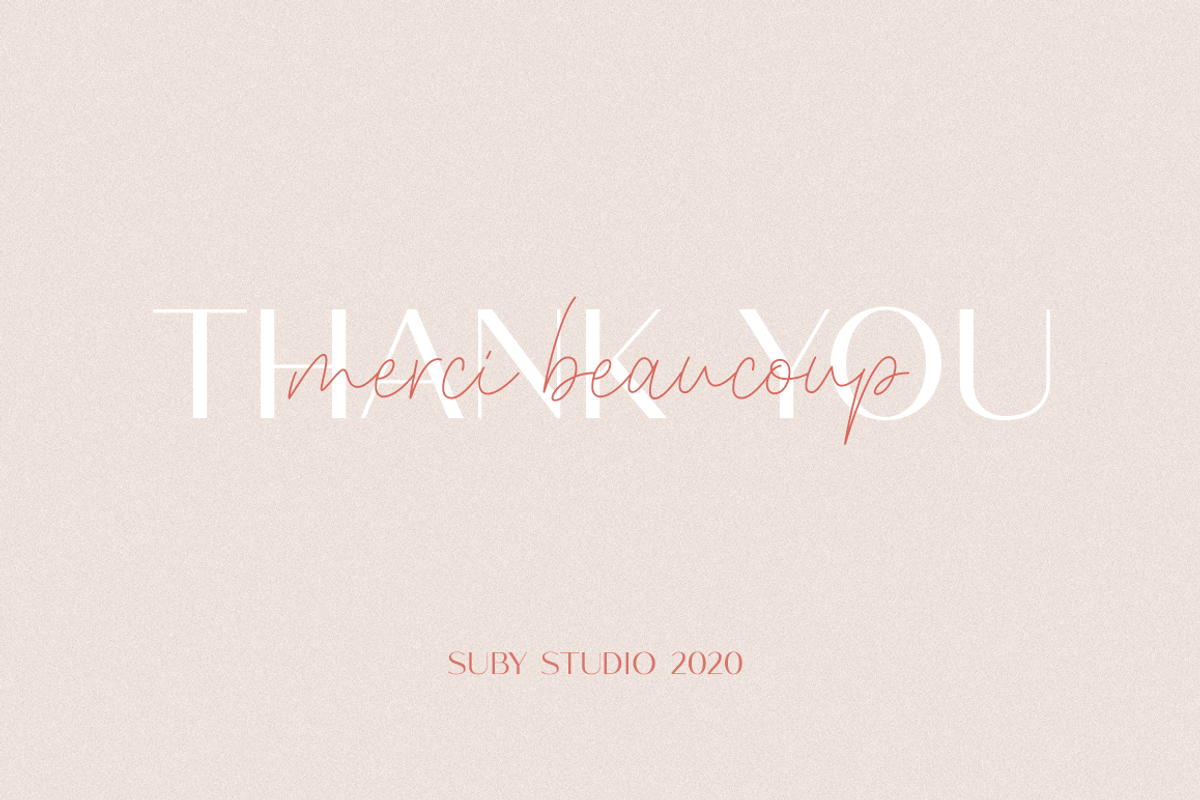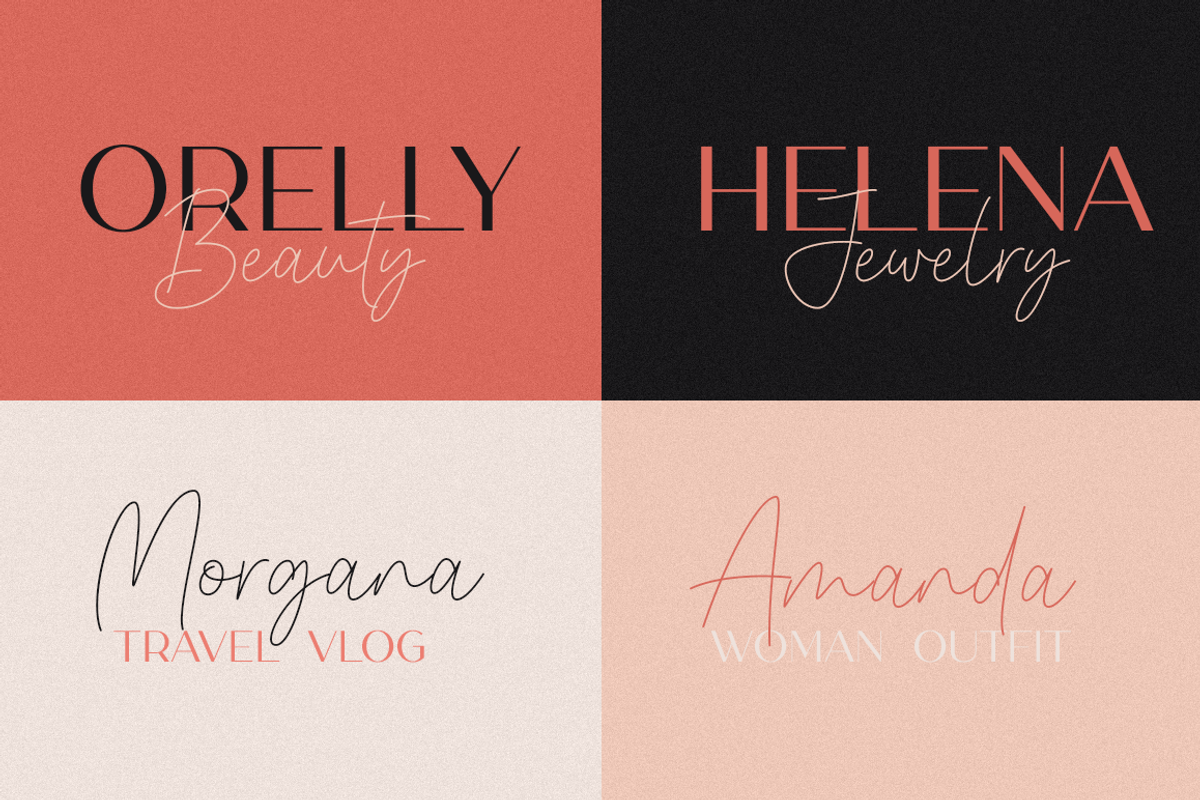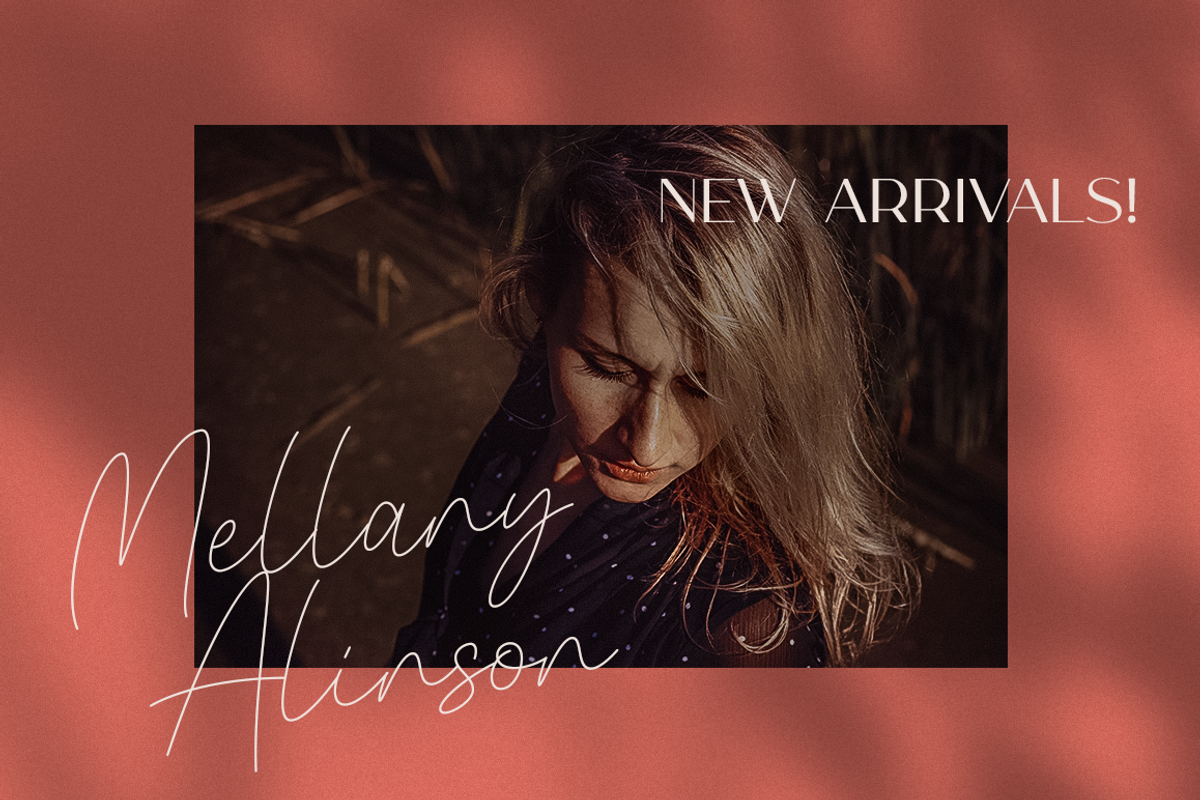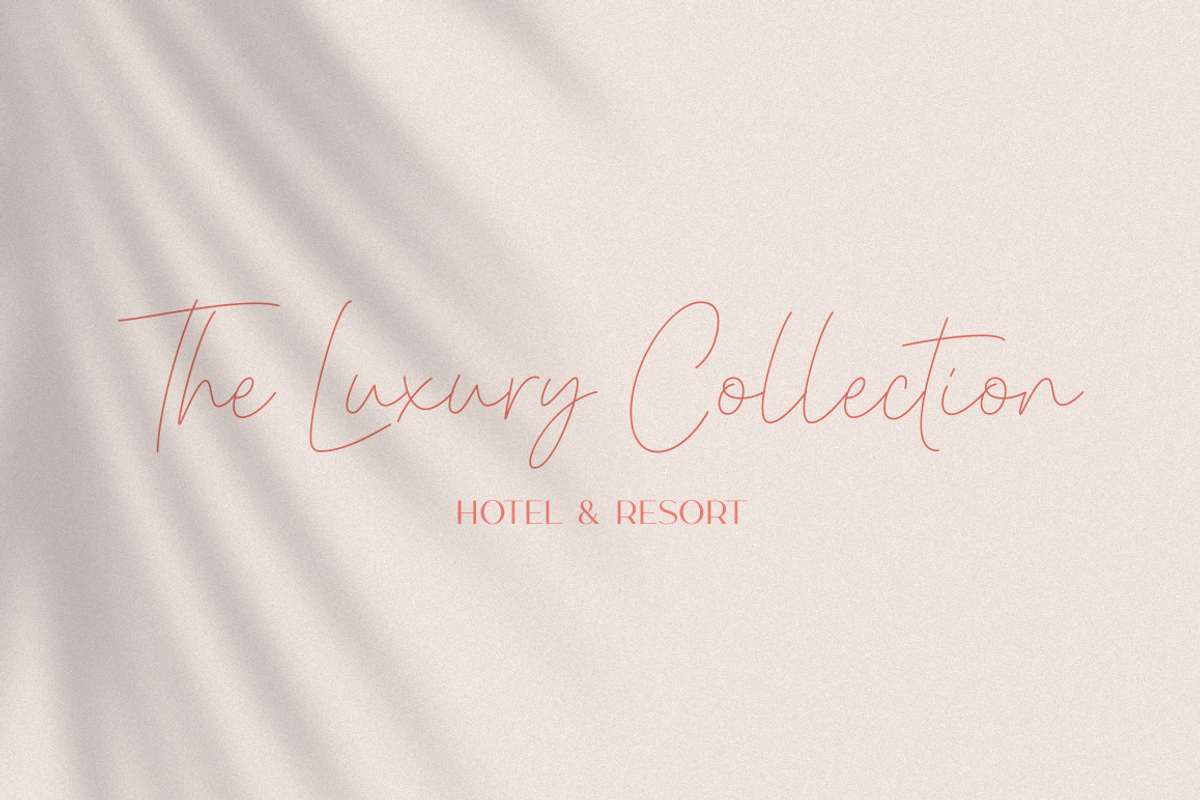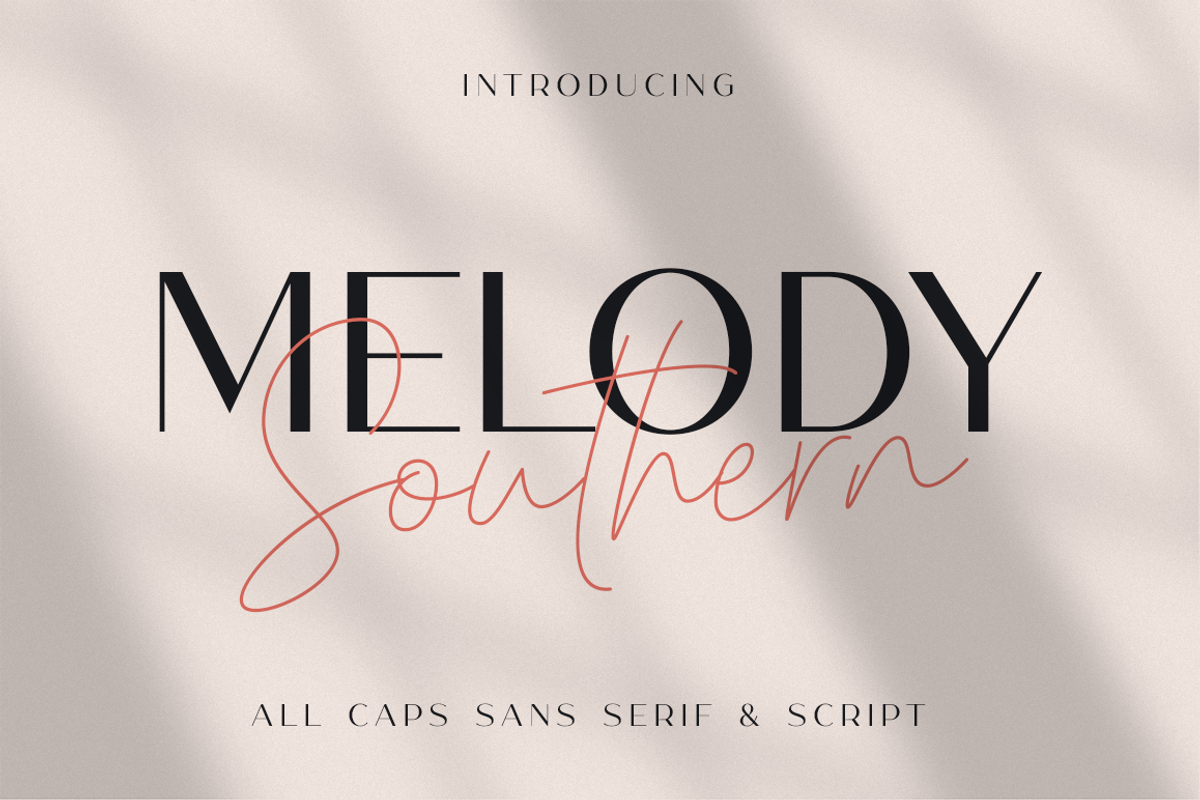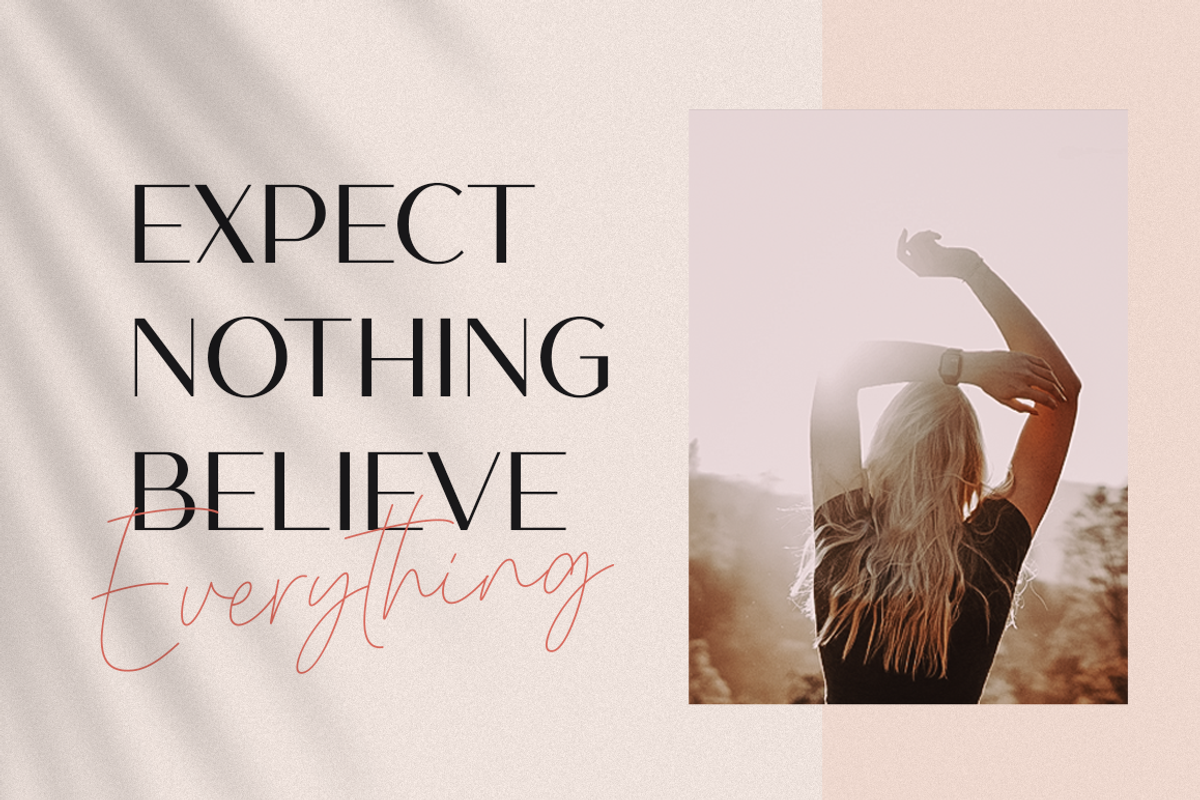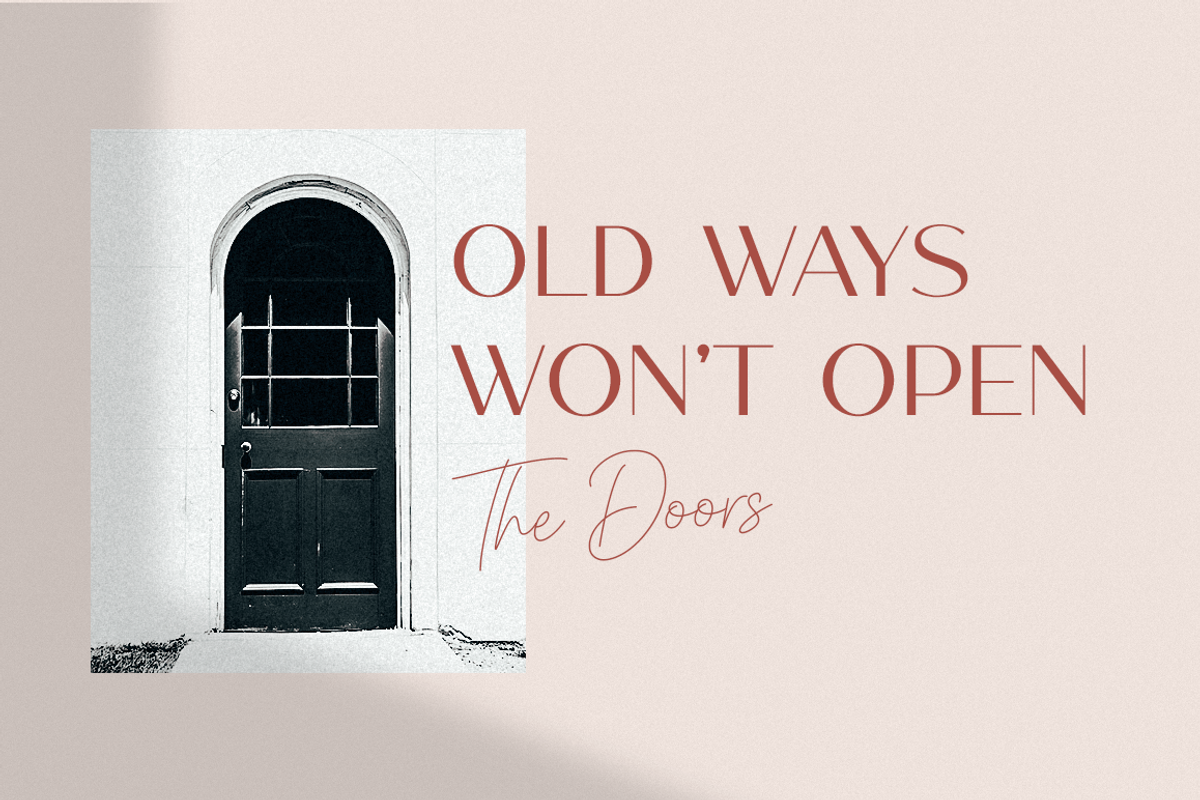
Melody Southern Font Duo
Introducing Melody Southern is a luxury font duo with combination elegant all caps sans serif and classy handwritten script font that perfect for logos, magazine, social media and more.